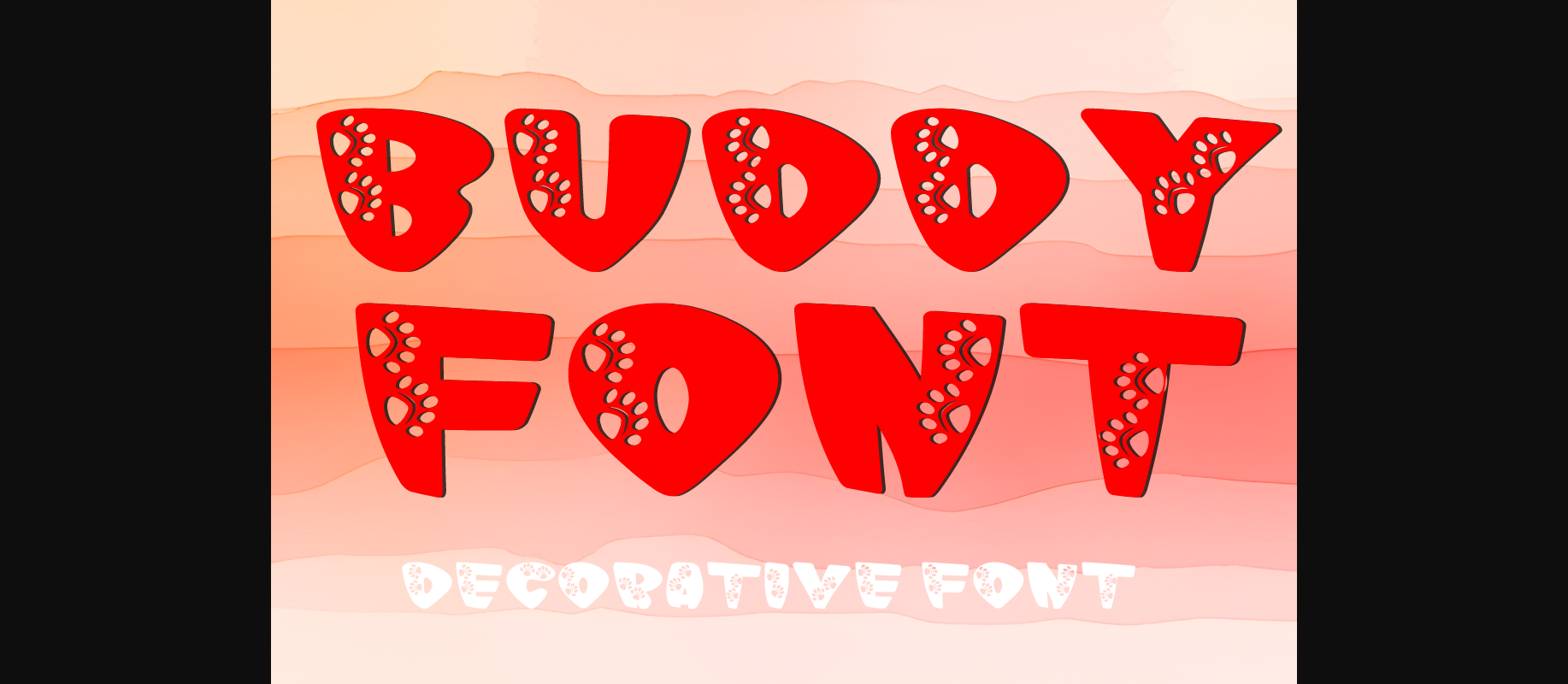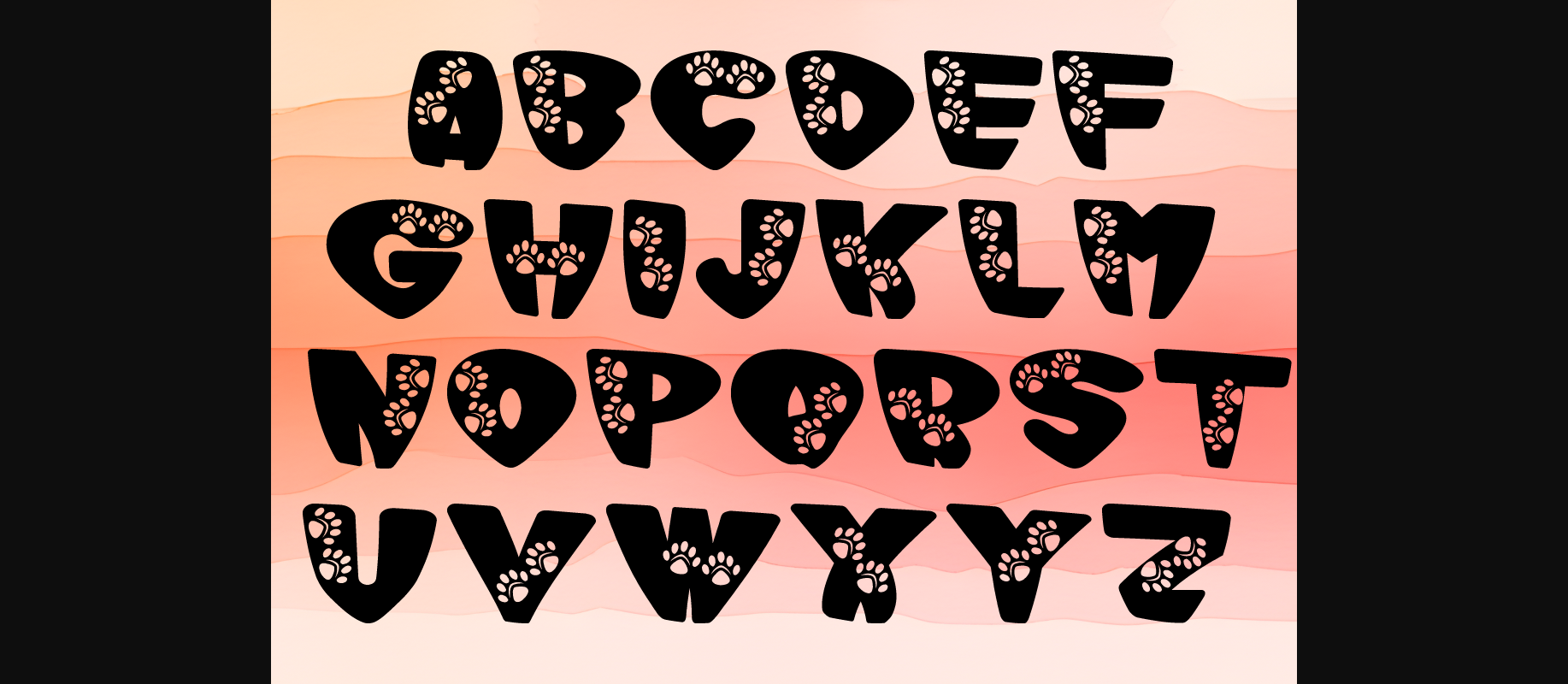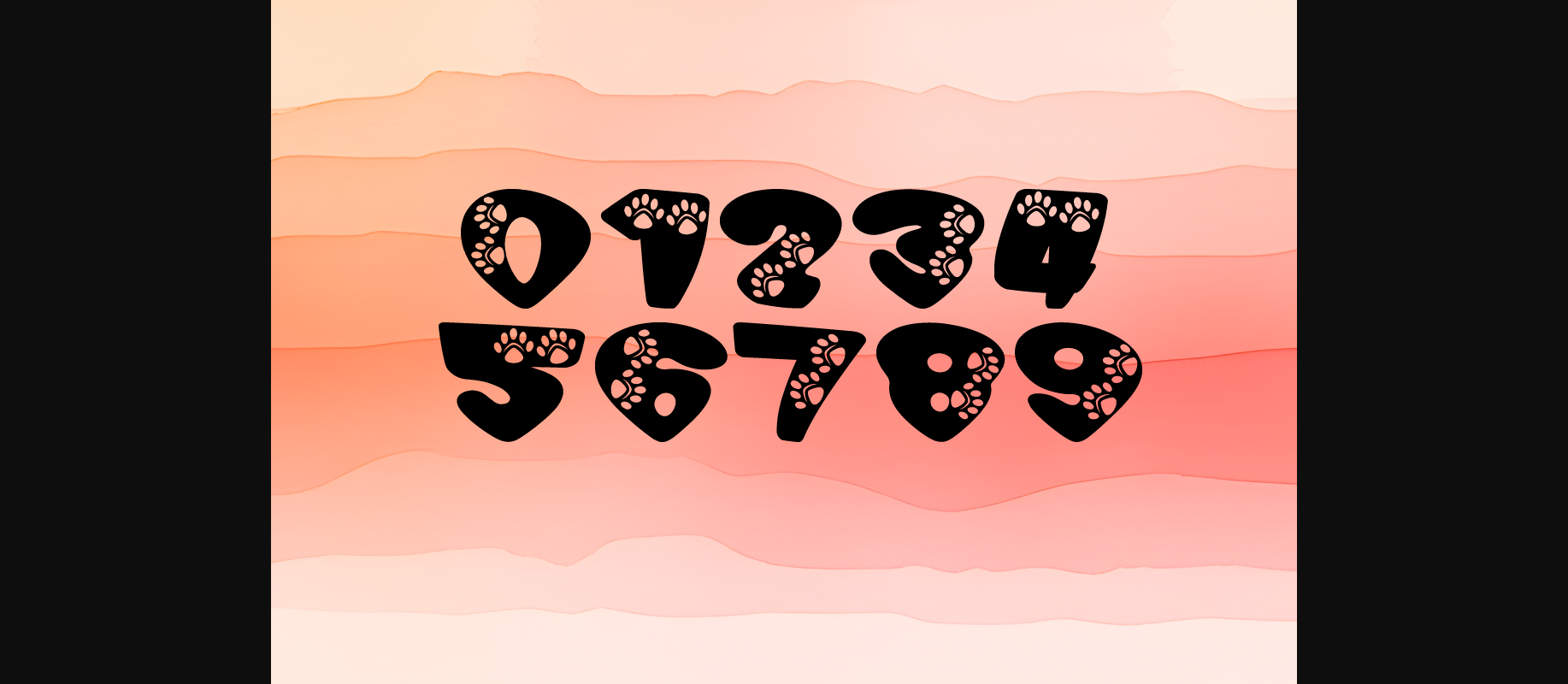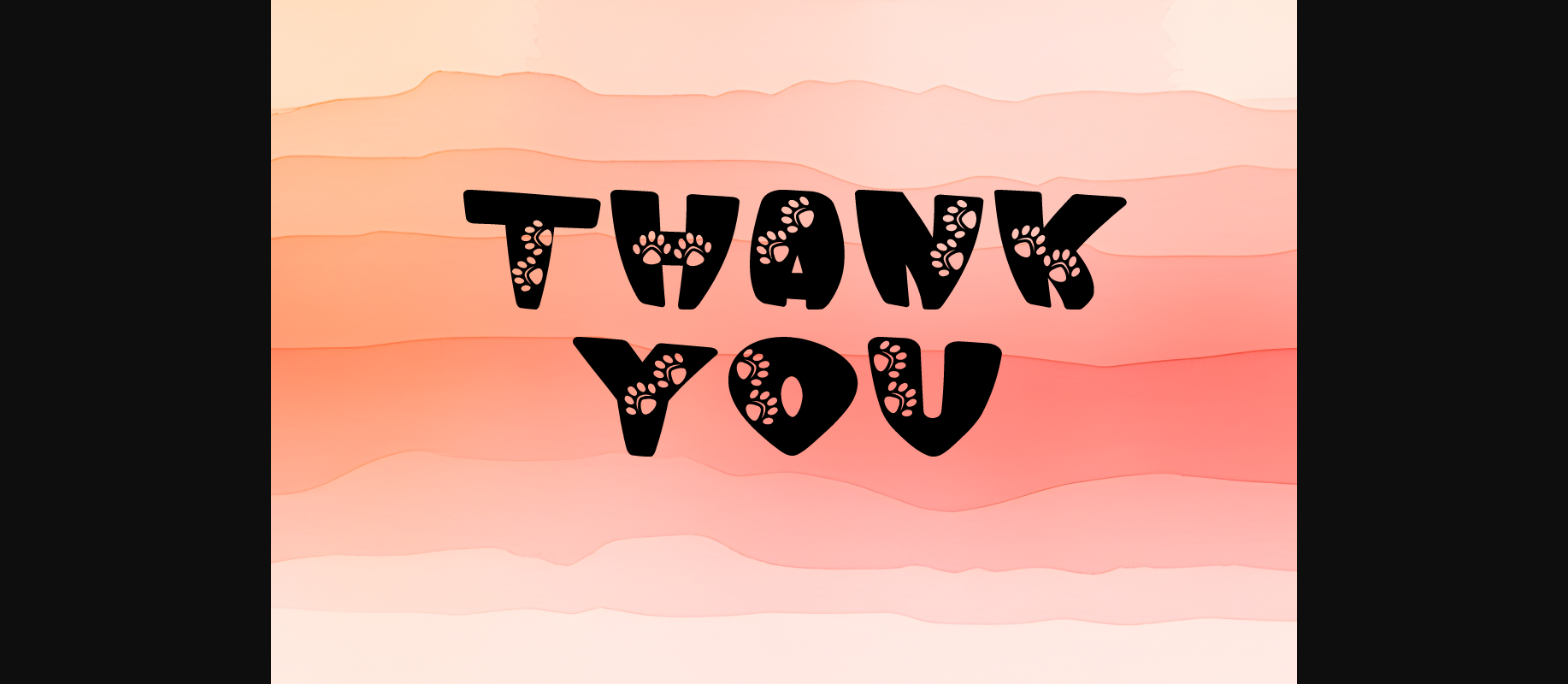
Buddy Font
About Buddy Font
Introducing Buddy – where creativity meets playfulness in every stroke! Dive into a world where letters are not just characters but artistic expressions adorned with the charm of a cat’s paw. With 26 captivating capital letters and 10 delightful numbers (0-9), this font pack is your ultimate tool for adding a touch of whimsy and character to your designs.